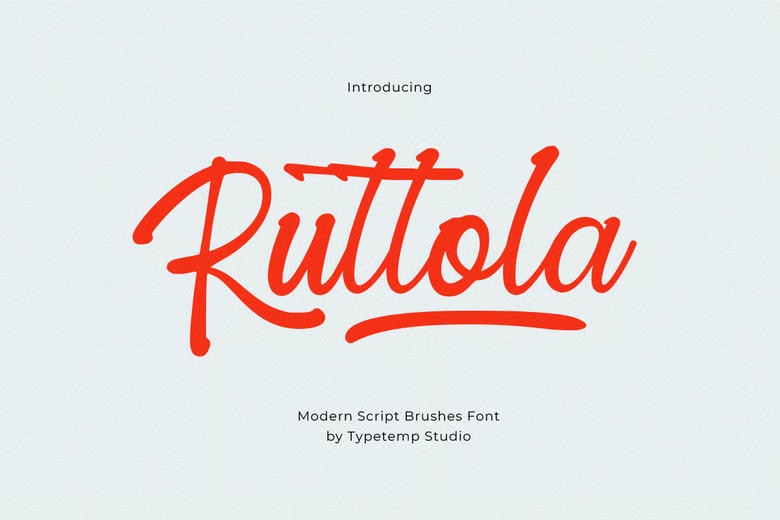
Ruttola Font
Ruttola Script Font is a contemporary script brush typeface, which is characterised by smooth strokes, natural flow, and expressive hand written character. Developed after the brush lettering, this font brings out a warm and friendly feel to your designs, fresh and energetic; yet gives that authentic feel.
The curves flow and the brush texture are bold and make Ruttola ideal in branding work that requires human touch. It is ideal when used in logos, packaging, posters, social media designs, quotes, and creative designs. A combination of class and ease, Ruttola is designed to be both modern and at the same time timeless, so it could be used in both professional and personal projects.
Ruttola Script Brush Font